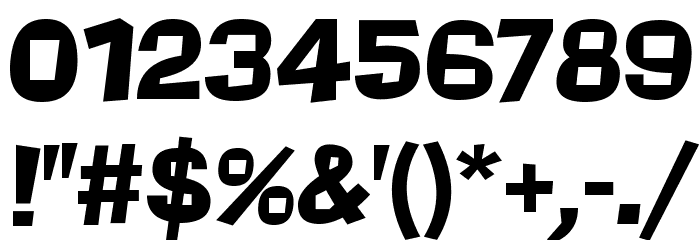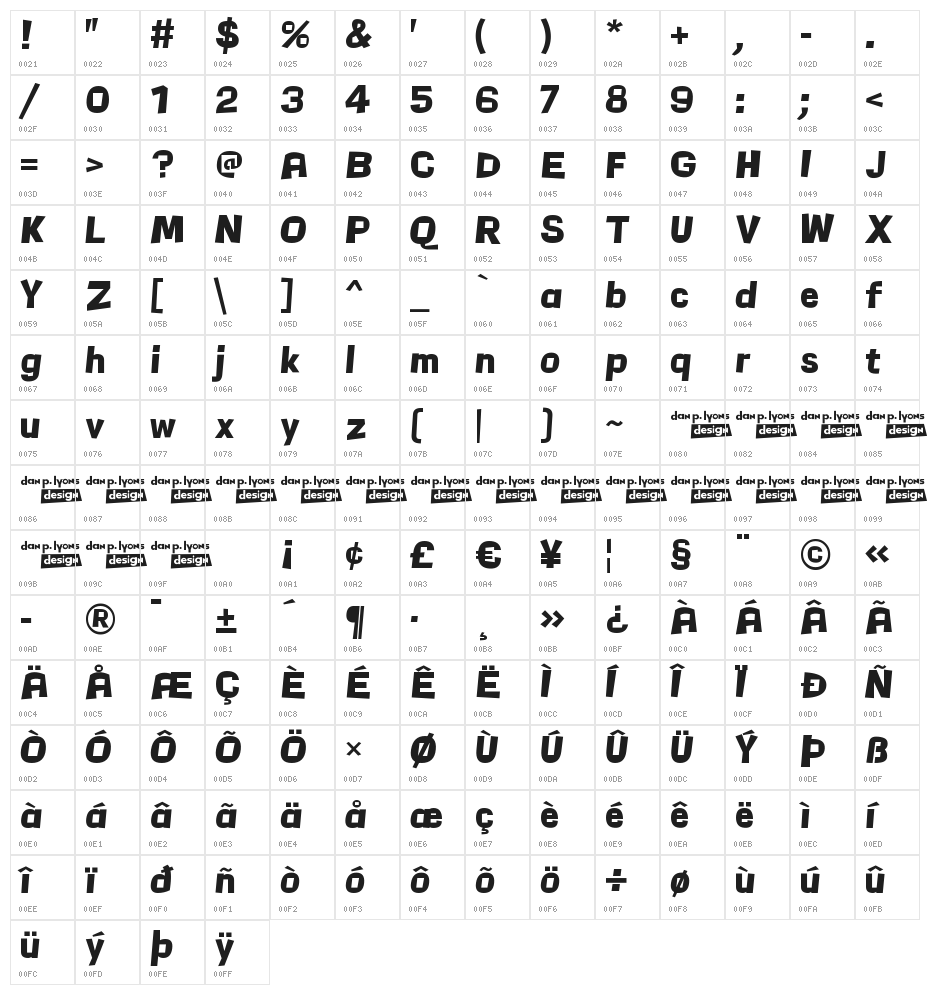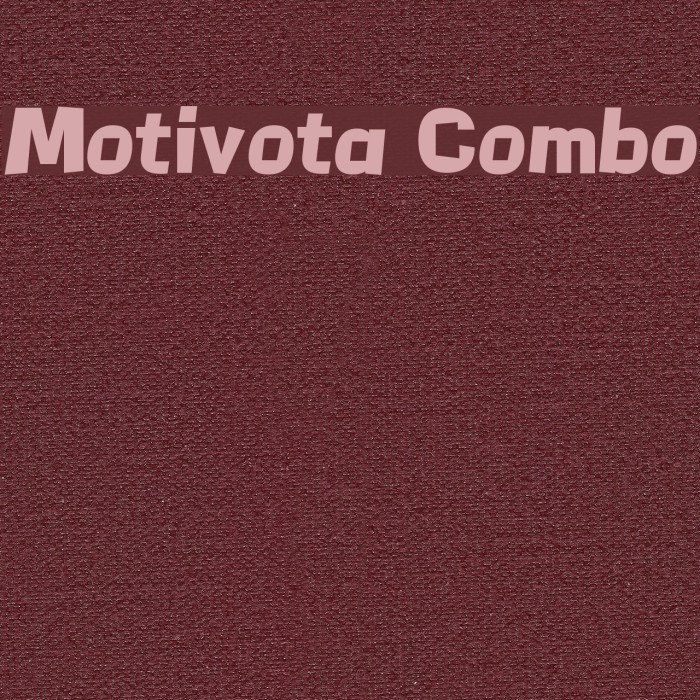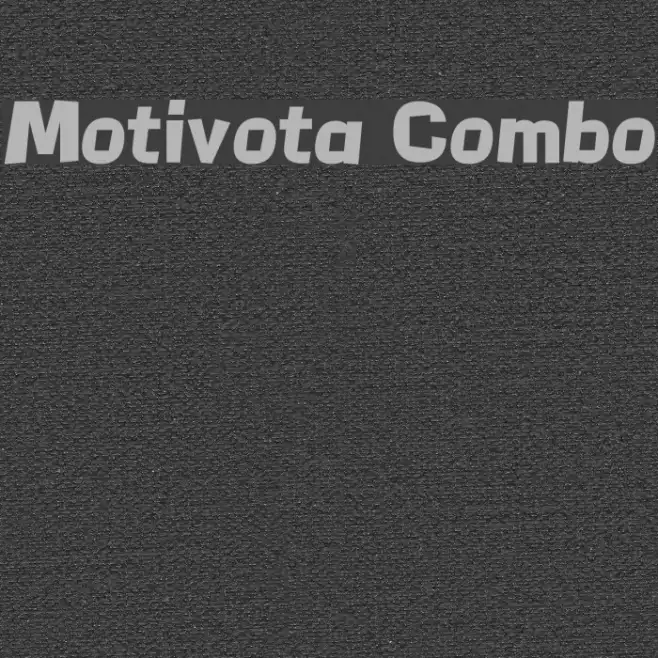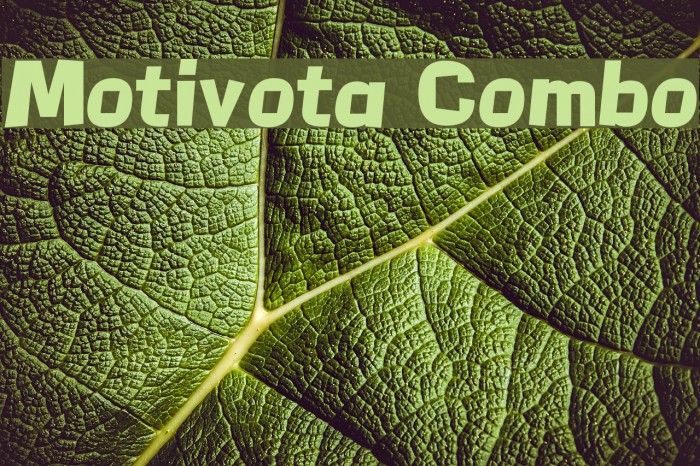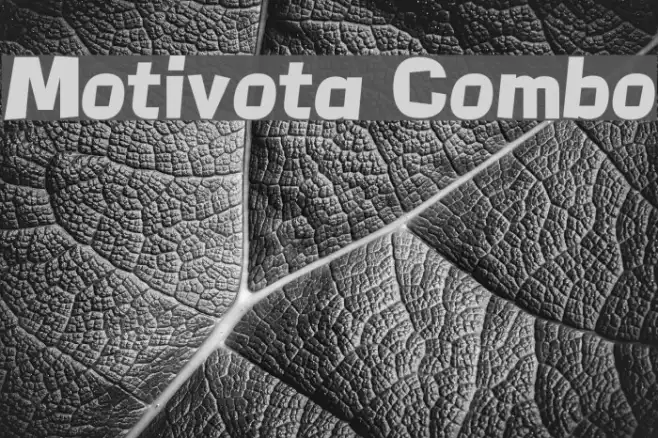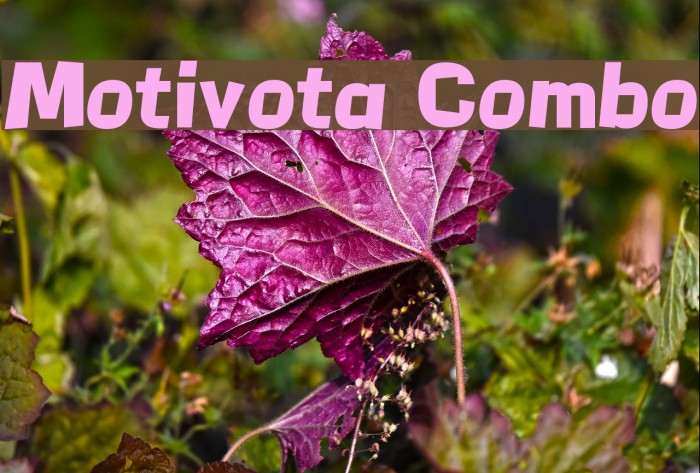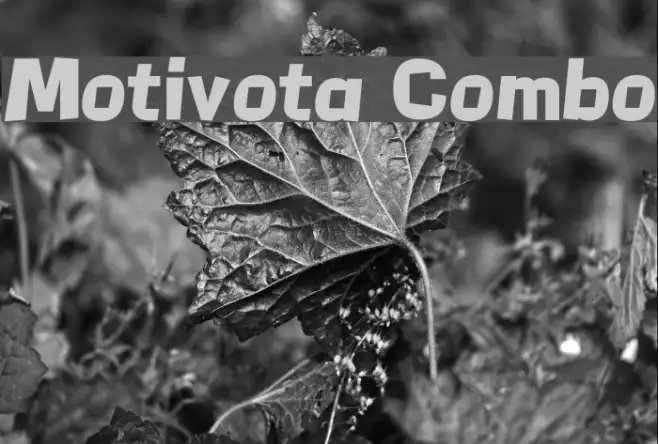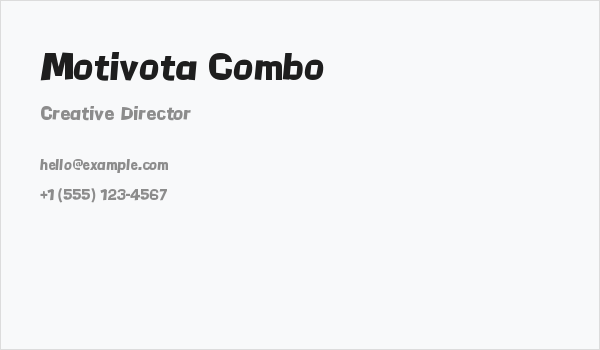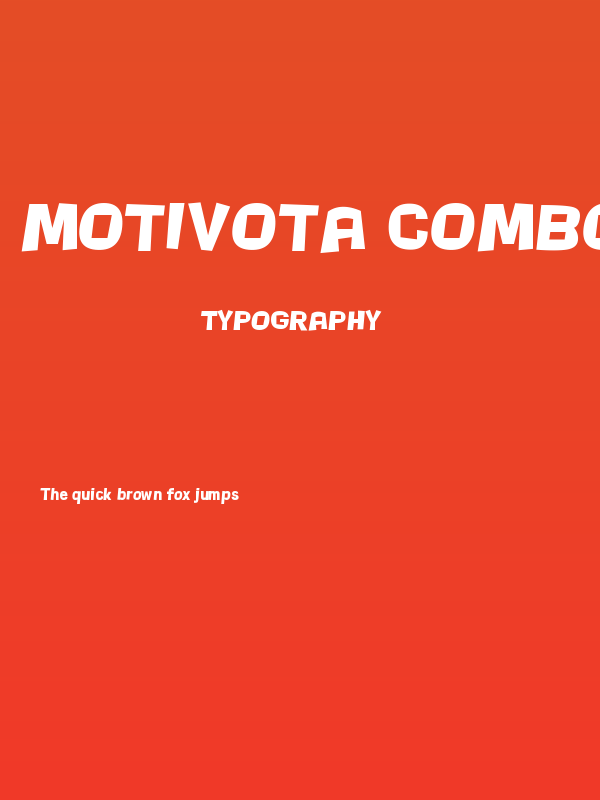
Motivota Combo Font
Motivota Combo Description
This font exhibits a bold and dynamic style with a modern flair. The characters are slightly slanted, giving a sense of motion and energy. The uppercase letters are robust and impactful, while the lowercase letters maintain a consistent weight and structure. The numbers are clear and bold, ensuring readability. Special characters are designed to match the overall aesthetic, providing a cohesive look. The font's strong presence makes it suitable for attention-grabbing designs.